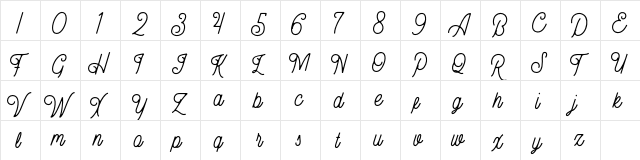
Bellonion DEMO Version Regular
| Foundry | Angin Studio |
| Designer | Angin Studio |
Design Context for Bellonion DEMO Version Typeface
Bellonion DEMO Version is a composed and adaptable typeface that performs quietly and consistently across a wide range of design contexts.